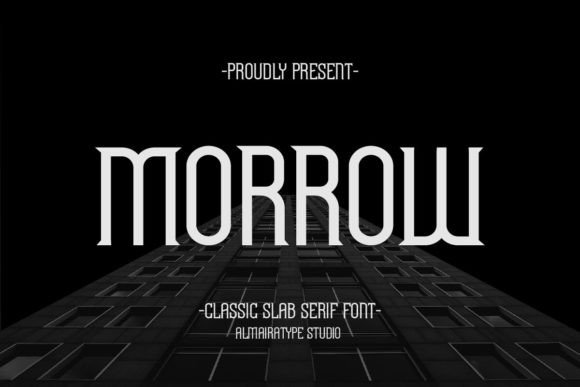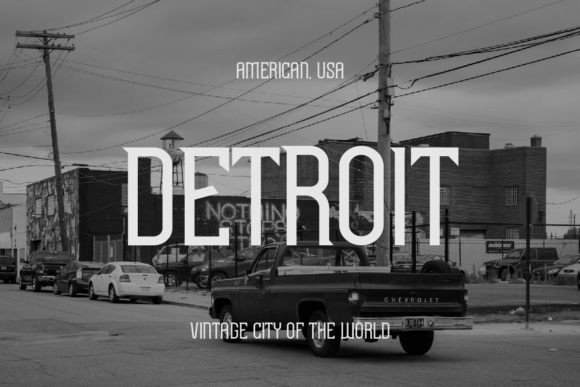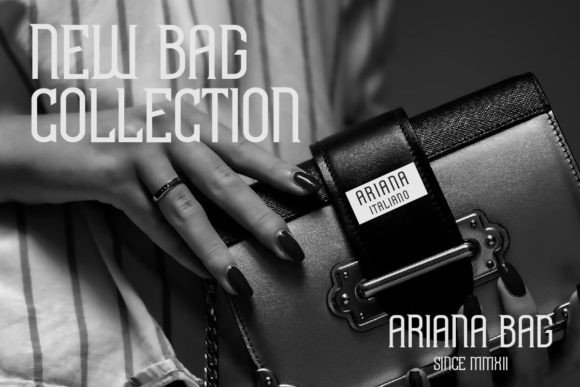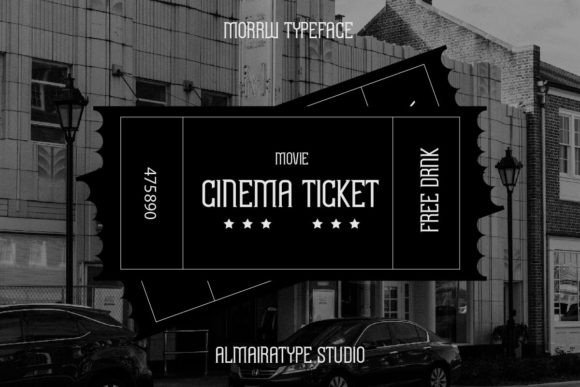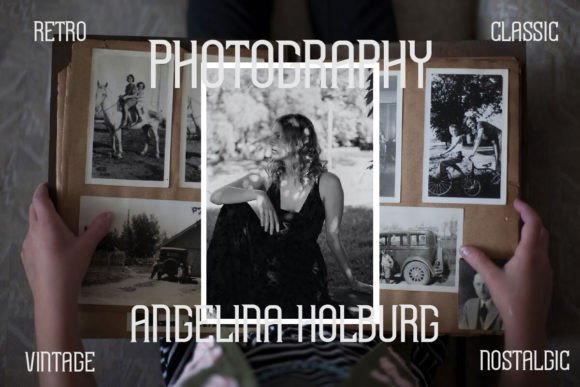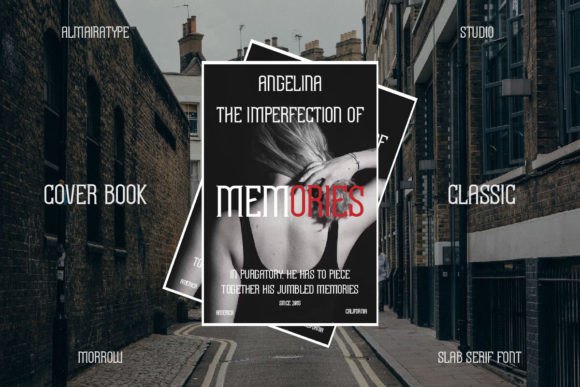
About Morrow Font
Morrow is a cool and stunning slab serif font with an elegant style. It is suitable for perfecting your creative projects such as t-shirts, labels, logos, web, branding, business, book covers, magazines, pamphlets, flyers, music albums, vinyl, and many other ideas.